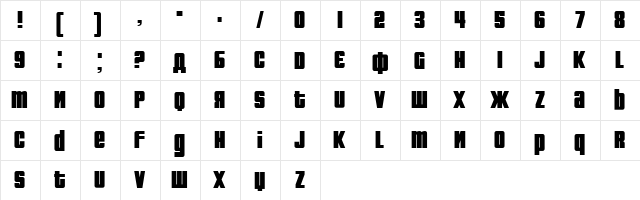
Fontograd Regular
| Designer | Vadimir Nikolic |
Design Context for Fontograd Typeface
Fontograd is a composed and adaptable typeface that performs quietly and consistently across a wide range of design contexts.